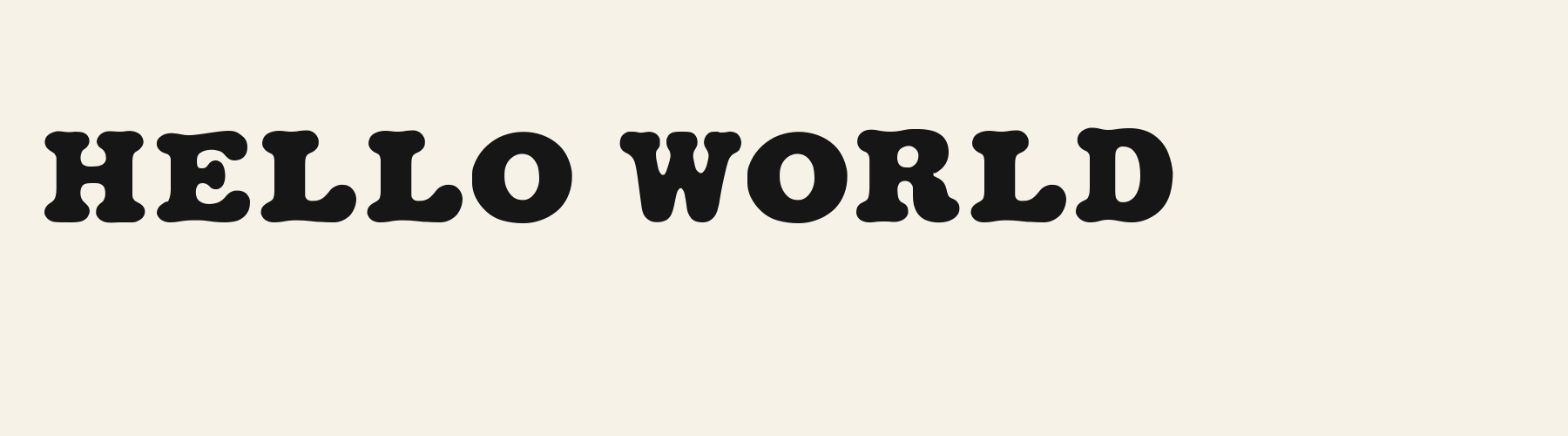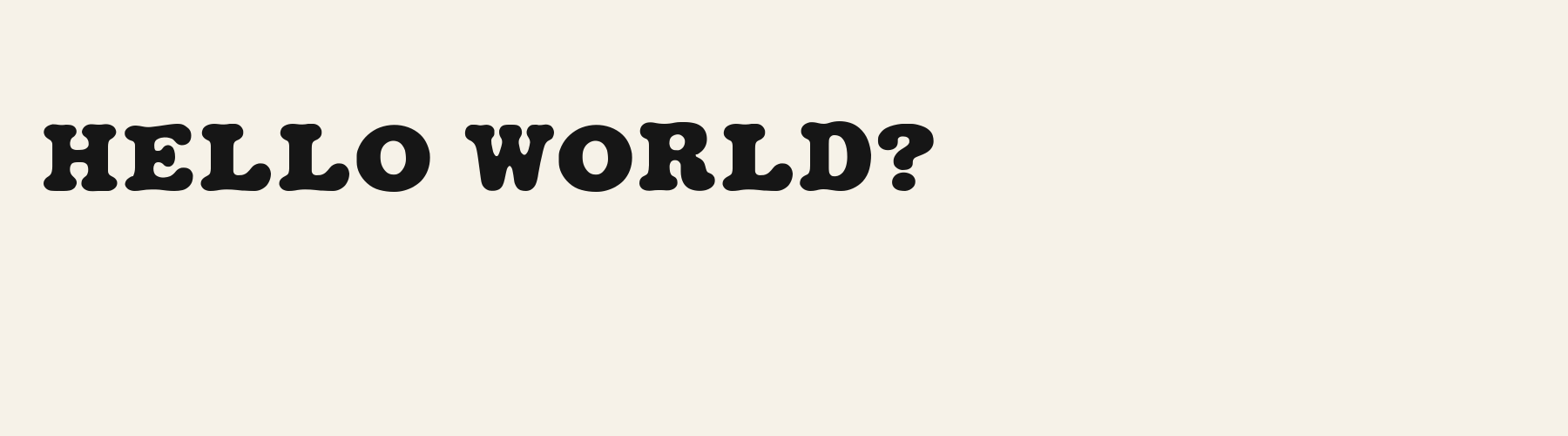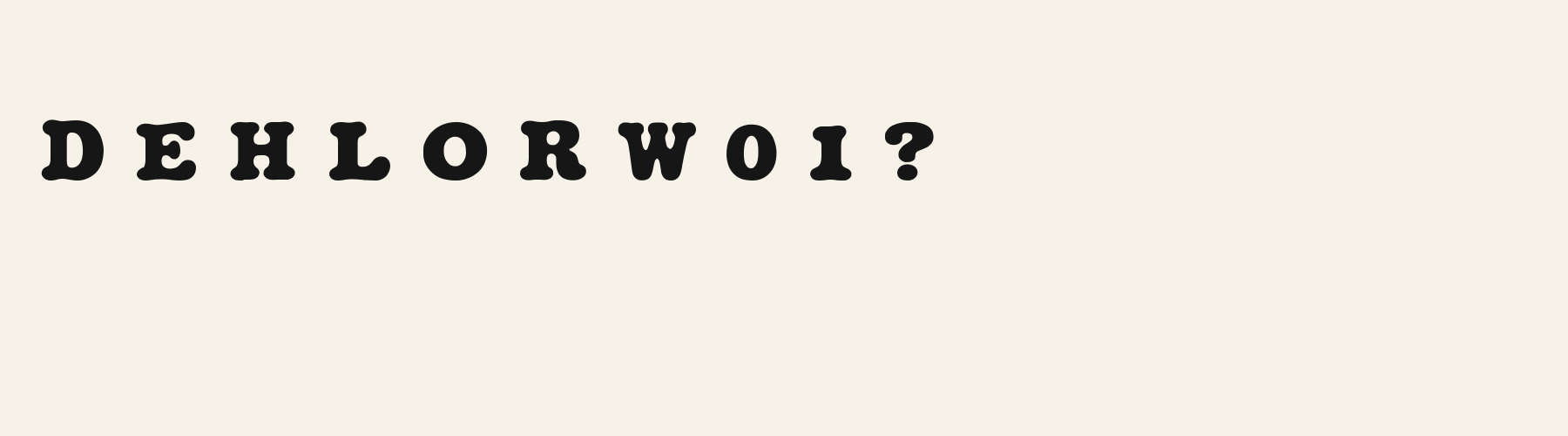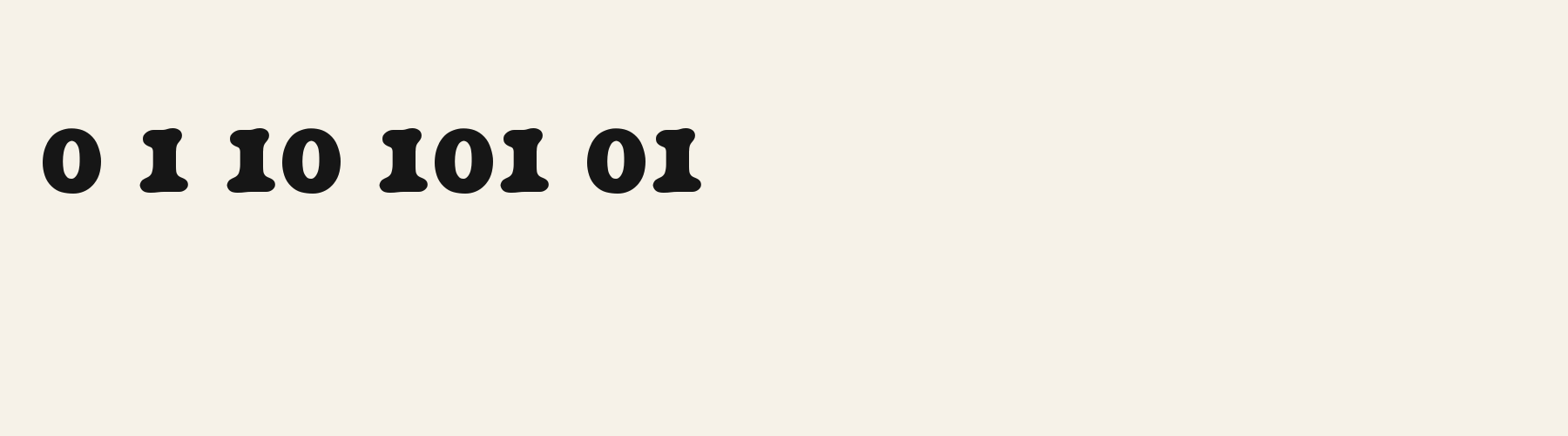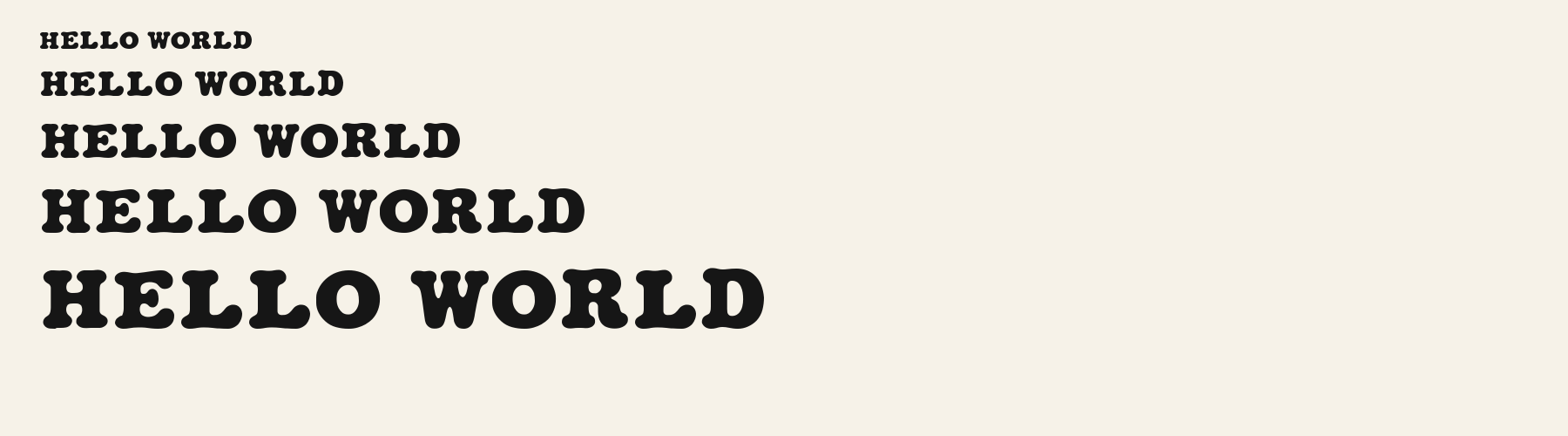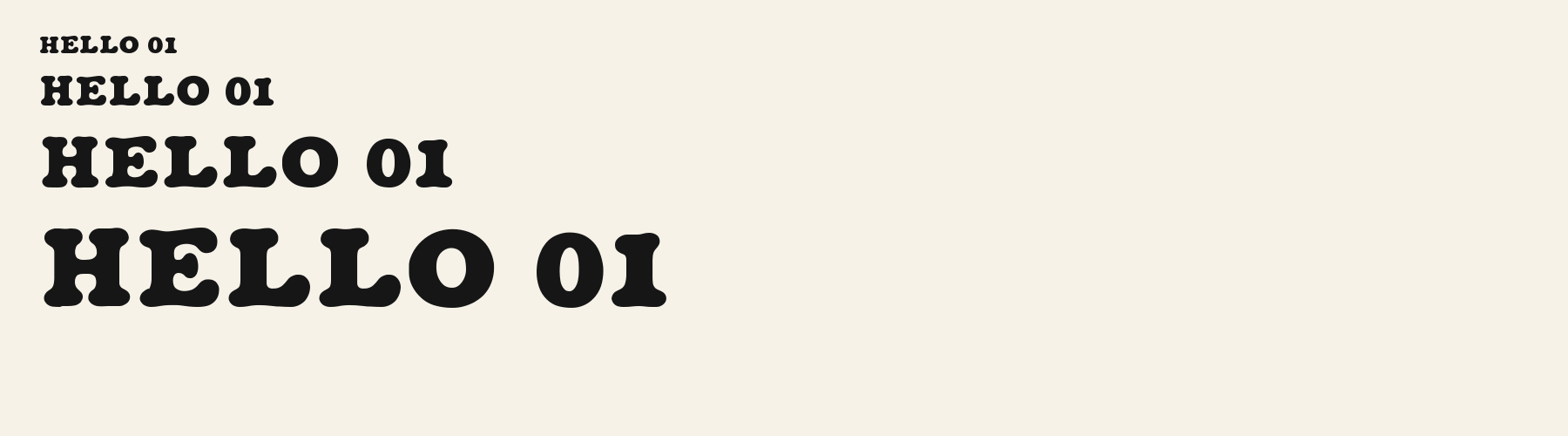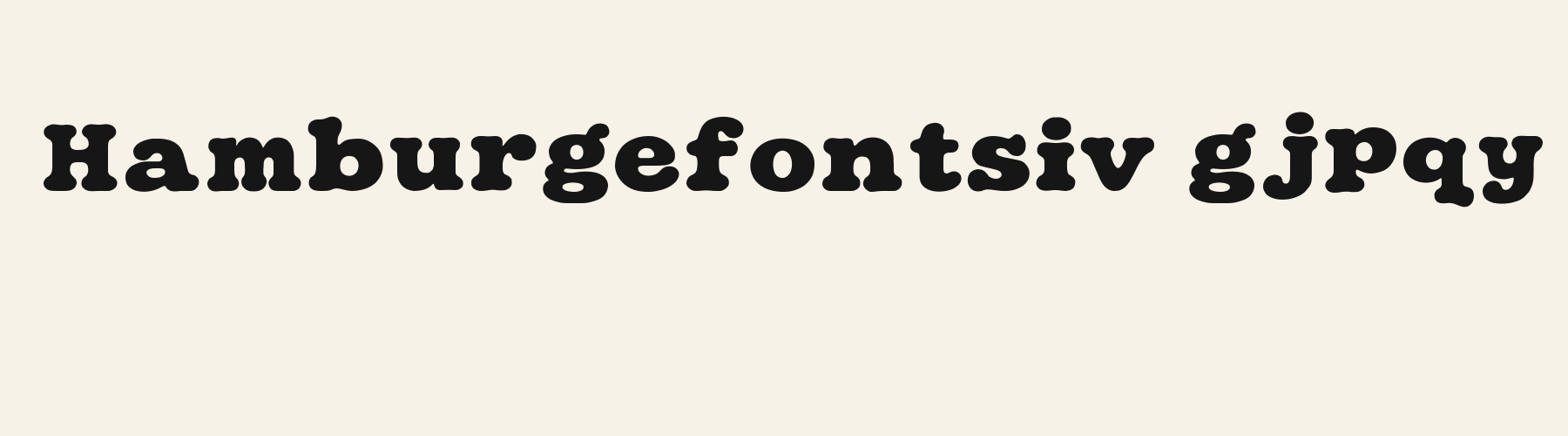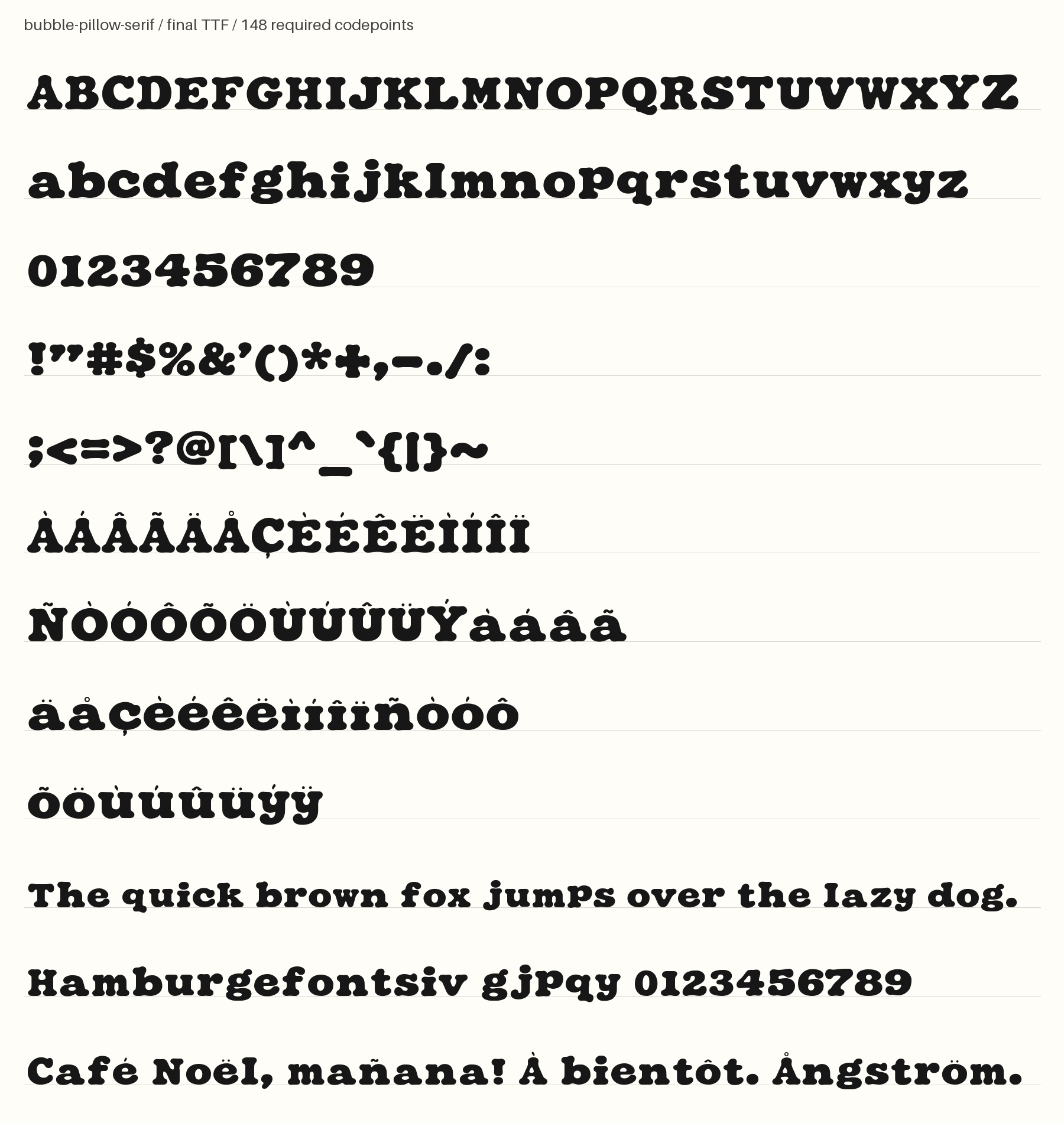
Bubble Pillow Serif is a packaging and playful product labels. Plump stems, soft serifs and generously open counters. Best for packaging and playful product labels.